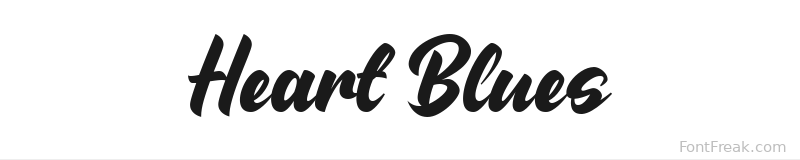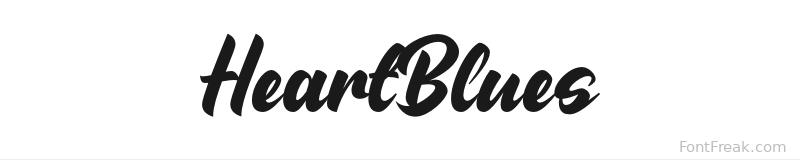
Heart Blues
Heart Blues by Kong Font is a captivating script font that exudes a charmingly playful vibe, making it an ideal choice for a variety of creative projects. This font features a fluid, handwritten style that captures the essence of spontaneity and warmth. The strokes are characterized by a medium weight with smooth curves and occasional flourishes that add a touch of elegance. The contrast between thick and thin lines creates a dynamic visual appeal, while the generous spacing between characters ensures clarity and readability.
Heart Blues is perfect for several specific use cases, including wedding invitations that require a romantic touch, movie posters that aim for an eye-catching title, and restaurant menus that want to convey a welcoming atmosphere. Additionally, it works well for greeting cards and social media graphics, allowing content creators to add a distinctive flair to their designs. The font appeals to a broad audience, including graphic designers seeking to enhance their projects, small business owners looking to create memorable branding, and content creators wanting to captivate their viewers.
What sets Heart Blues apart is its unique ability to blend casual charm with artistic elegance, making it versatile enough to suit both formal and informal contexts. The font's inherent playfulness can evoke emotional connections, making it an excellent choice for projects that aim to resonate with audiences on a personal level. With Heart Blues font free download available, you can easily incorporate this delightful typeface into your next design endeavor, ensuring that your work stands out with a fresh and inviting aesthetic.